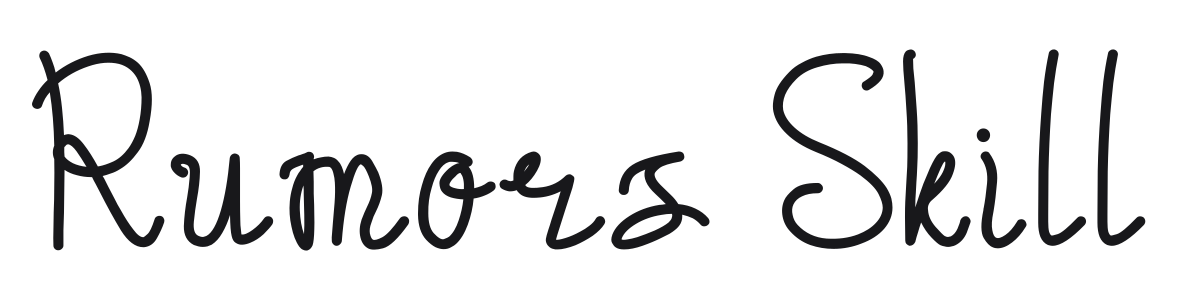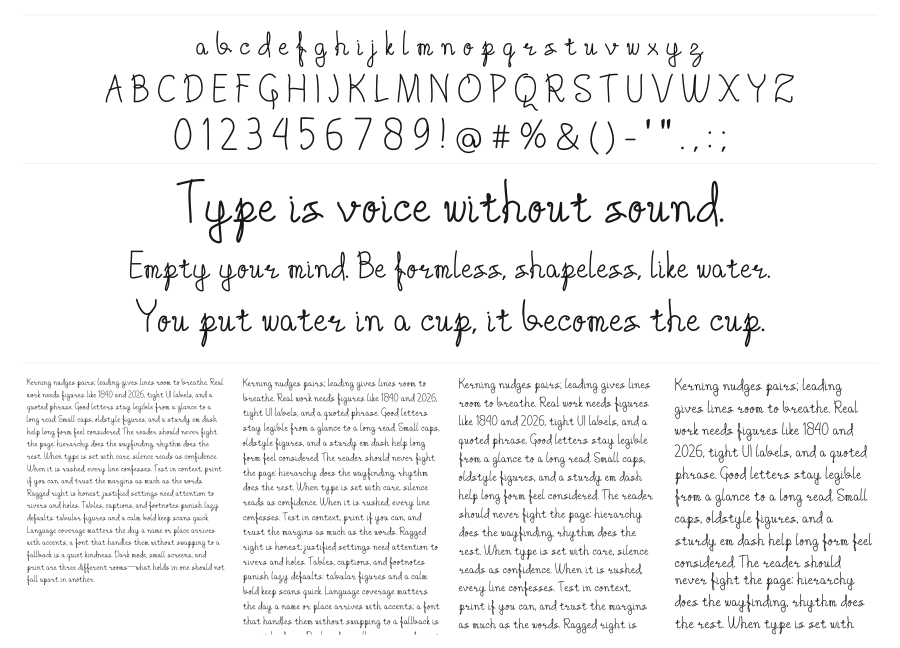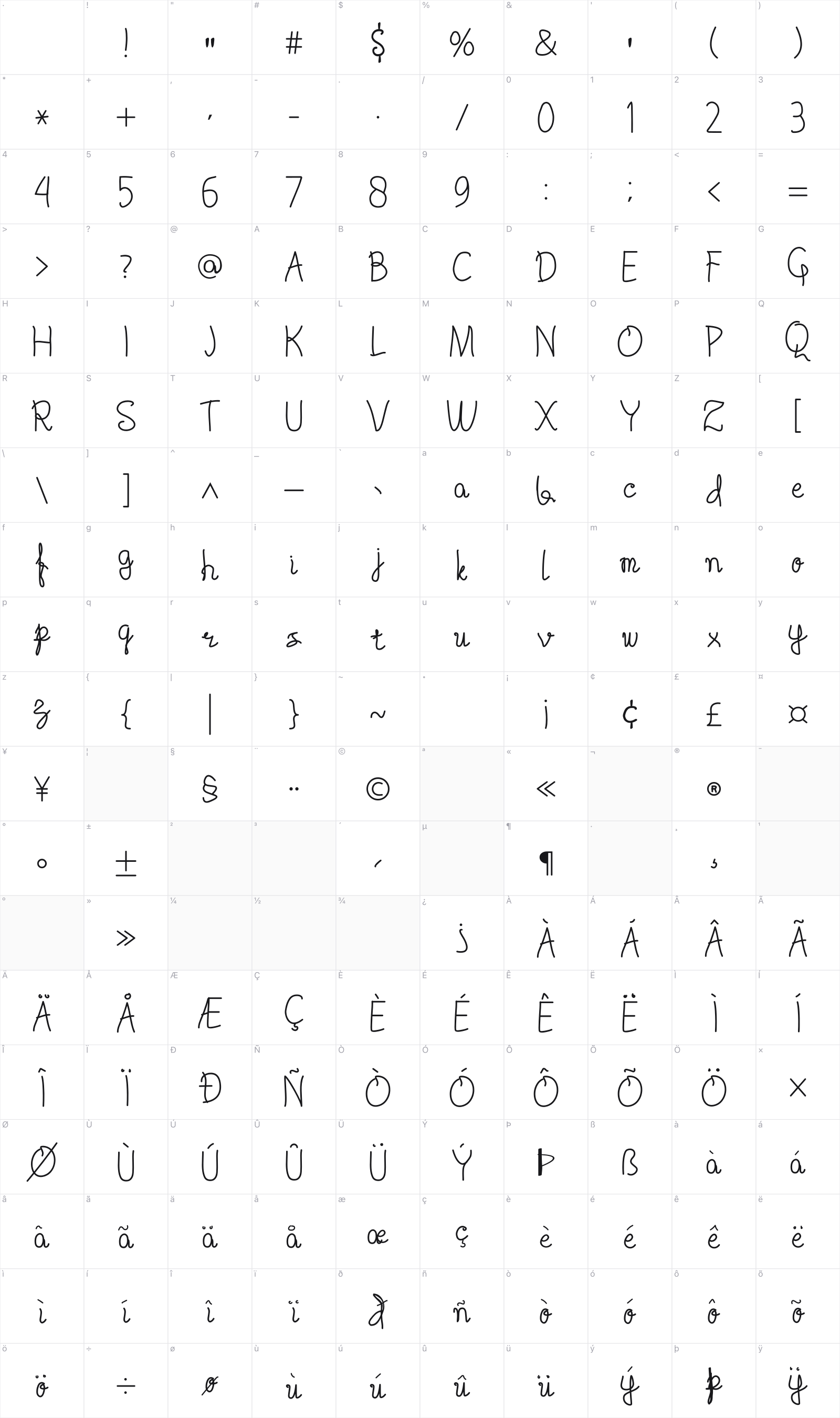
Rumors Skill
Rumors Skill is a casual handwritten script with a loose, flowing pen feel and consistently thin monoweight strokes. The connected letters move with natural rhythm, featuring looping ascenders and curled terminals that give it a genuine hand-drawn quality. It works well anywhere an approachable, personal touch is needed.